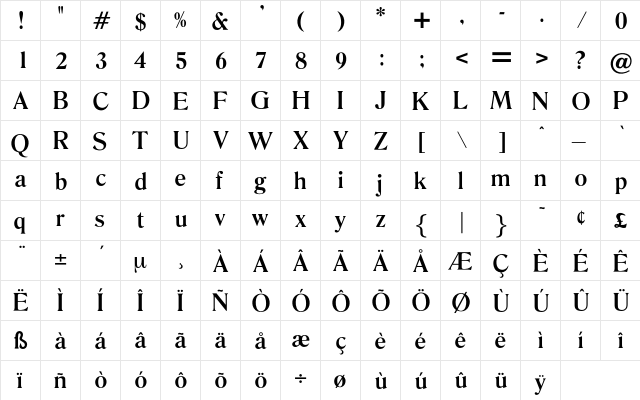
OktaveMedium Regular
Design Context for OktaveMedium Typeface
OktaveMedium offers clean, dependable letterforms without strong stylistic allegiance, making it a practical choice for designers who need flexibility.